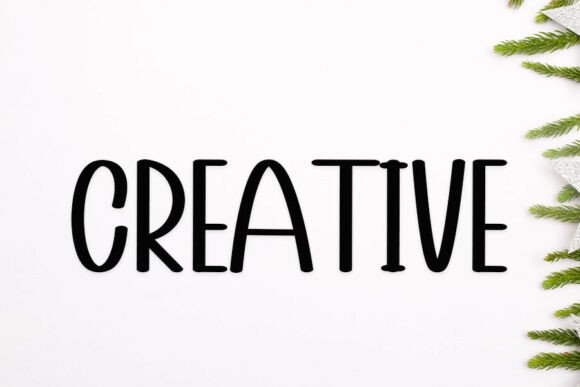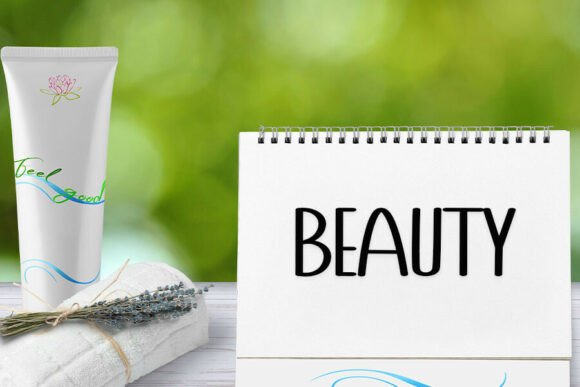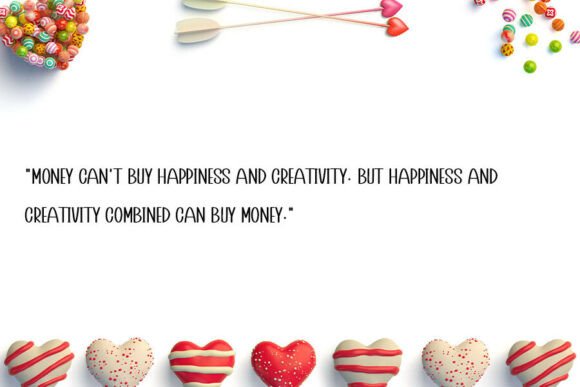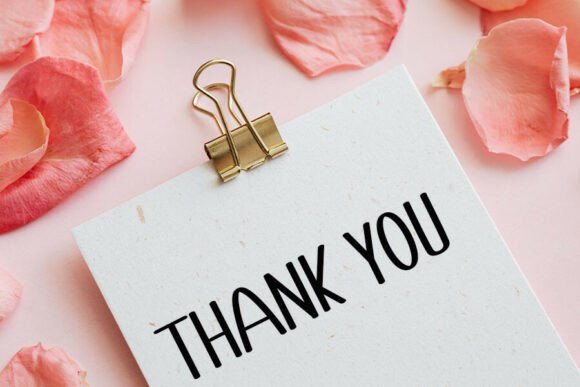
Dreamer Valentine Font: The Perfect Choice for Romantic and Sophisticated Designs
Are you looking for a font that exudes warmth, professionalism, and modern clarity? Look no further than the Dreamer Valentine Font. This clean and approachable display font is designed with a friendly, hand-crafted silhouette that is sure to capture the hearts of designers and crafters alike. In this article, we’ll dive into the features and benefits of the Dreamer Valentine Font, and explore how it can elevate your romantic seasonal branding, artisanal product packaging, lifestyle editorial headers, and sophisticated personal stationery.
A Friendly and Approachable Design
The Dreamer Valentine Font boasts a simple calligraphy design with vertically elongated letterforms rendered with a consistent, monolinear stroke weight and soft, rounded terminals. This unique combination of features gives the font its distinctive personality, which is defined by an organized vertical rhythm and a stable axis. The result is a font that feels both warm and professional, making it perfect for a wide range of design applications.
Ideal for Romantic Seasonal Branding
Valentine’s Day, weddings, and anniversaries are just a few occasions where the Dreamer Valentine Font shines. Its romantic and elegant feel makes it an excellent choice for creating beautiful and memorable branding materials. Whether you’re designing a logo, business cards, or social media graphics, this font is sure to convey your message with style and sophistication. The font’s clean and approachable design ensures that your branding looks modern and fresh, while its friendly and hand-crafted silhouette adds a touch of warmth and personality.
Elevate Your Artisanal Product Packaging
As a crafter or artisan, you know how important it is to create packaging that stands out from the crowd. The Dreamer Valentine Font is an excellent choice for labeling your products, creating custom packaging, or designing eye-catching labels. Its elegant and refined design will add a touch of sophistication to your products, making them perfect for gift-giving or everyday use. Whether you’re selling handmade jewelry, candles, or baked goods, this font will help your products look premium and high-end.
Perfect for Lifestyle Editorial Headers
The Dreamer Valentine Font is also an excellent choice for lifestyle editorial headers, such as those found in fashion, beauty, or lifestyle magazines. Its clean and modern design makes it perfect for creating eye-catching headlines and titles that grab the reader’s attention. The font’s elegant and refined feel ensures that your editorial content looks sophisticated and high-end, while its friendly and approachable design adds a touch of warmth and personality.
Sophisticated Personal Stationery
For those who appreciate beautiful stationery, the Dreamer Valentine Font is an excellent choice for creating sophisticated and elegant letterheads, invitations, or greeting cards. Its refined and elegant design makes it perfect for formal or informal correspondence, adding a touch of warmth and personality to your written communication. Whether you’re a writer, artist, or simply someone who appreciates beautiful stationery, this font is sure to impress.
- Clean and approachable display font with a friendly, hand-crafted silhouette
- Simple calligraphy design with vertically elongated letterforms and soft, rounded terminals
- Consistent, monolinear stroke weight and organized vertical rhythm
- Stable axis and warm, professional artistry feel
- Ideal for romantic seasonal branding, artisanal product packaging, lifestyle editorial headers, and sophisticated personal stationery
In conclusion, the Dreamer Valentine Font is an excellent choice for designers and crafters looking for a font that exudes warmth, professionalism, and modern clarity. Its unique combination of features makes it perfect for a wide range of design applications, from romantic seasonal branding to sophisticated personal stationery. With its elegant and refined design, friendly and approachable feel, and versatility, this font is sure to become a staple in your design library.